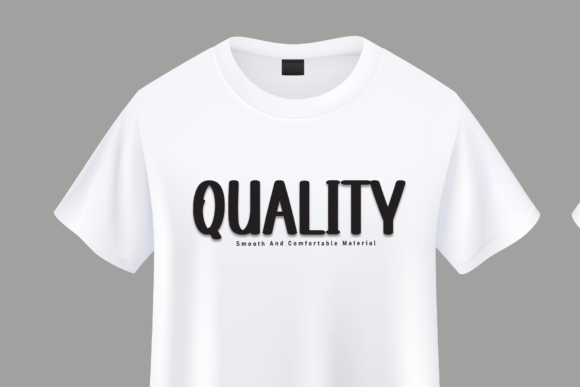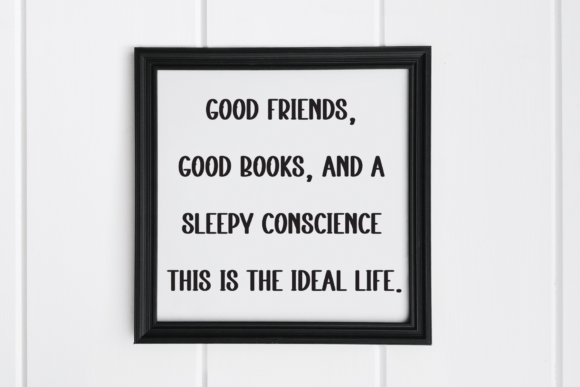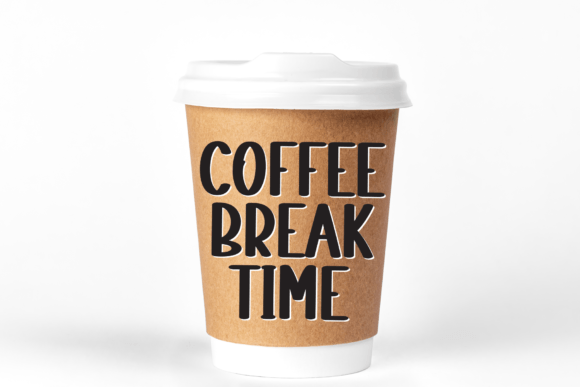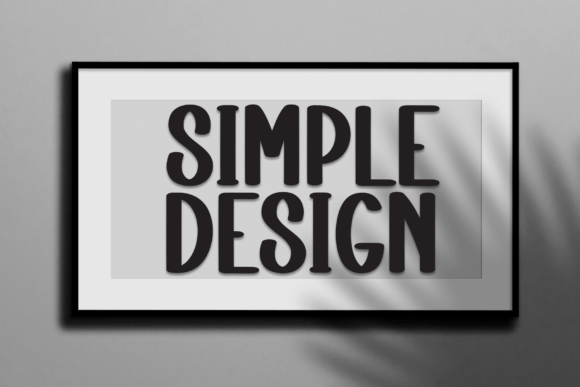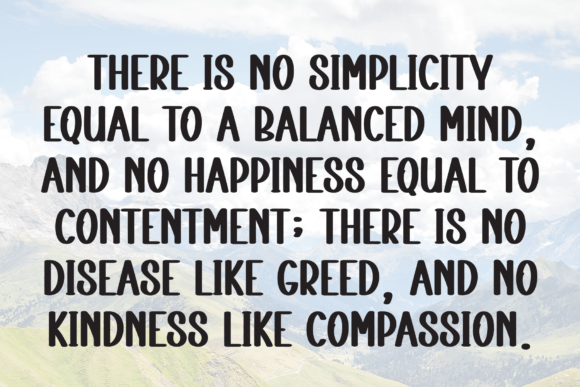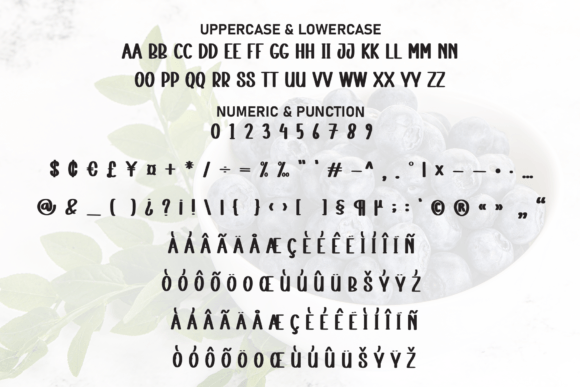
Introduction to Bluberry Font Font
Fonts play a crucial role in design, and the Bluberry Font font is a typeface that brings both character and versatility to any project. Whether you’re working on a branding project, a website, or a print design, the Bluberry Font font offers a unique style that can elevate your work.
Introducing an adorable and personable handwritten font, delightfully designed to add a sprinkle of charm to your creative ventures.
This font, exuding an endearing fun feel, crafts an ideal choice for penning down gorgeous wedding invitations, heartfelt cards, or any design that seeks a playful twist .
Key Features of Bluberry Font Font
Why Choose Bluberry Font Font?
The Bluberry Font font is more than just a typeface – it’s a design tool that helps you communicate your message with style and clarity. Its unique character set and versatile design make it suitable for a wide range of applications, from elegant invitations to bold headlines.
With its carefully crafted letterforms and balanced proportions, the Bluberry Font font ensures readability and visual appeal across all mediums.
What makes Bluberry Font font special?
The Bluberry Font font stands out with its unique design, exceptional readability, and versatility across various design applications.